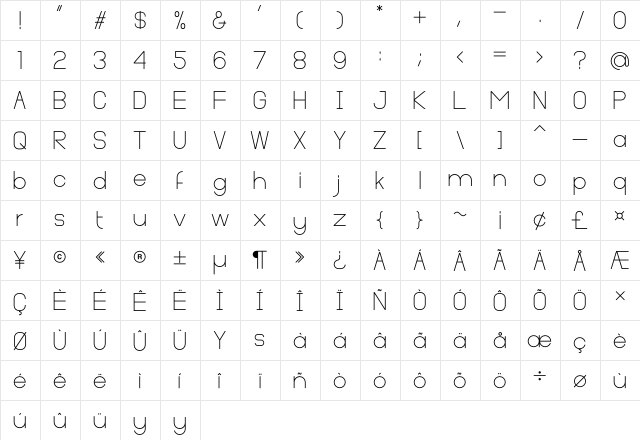
Cleon Demo Regular Font Preview
Cleon Demo Regular
Cleon Demo Regular Font Details
| Foundry | Factory738 |
| Designer | Wahyu S Rahmawan |
Design Context for Cleon Demo Typeface
Cleon Demo takes a measured approach to typography — its balanced proportions and neutral character make it a reliable workhorse for both digital and print work.